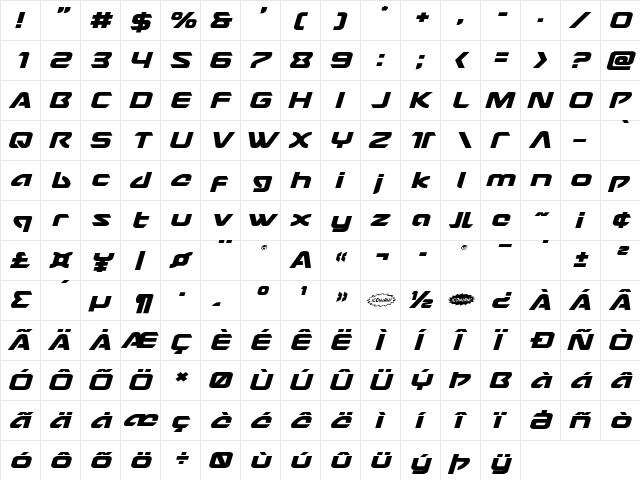
USAngel Expanded Italic Expanded Italic
Design Context for USAngel Expanded Italic Typeface
USAngel Expanded Italic takes a measured approach to typography — its balanced proportions and neutral character make it a reliable workhorse for both digital and print work. Its italic angle brings a sense of urgency and motion to the letterforms.